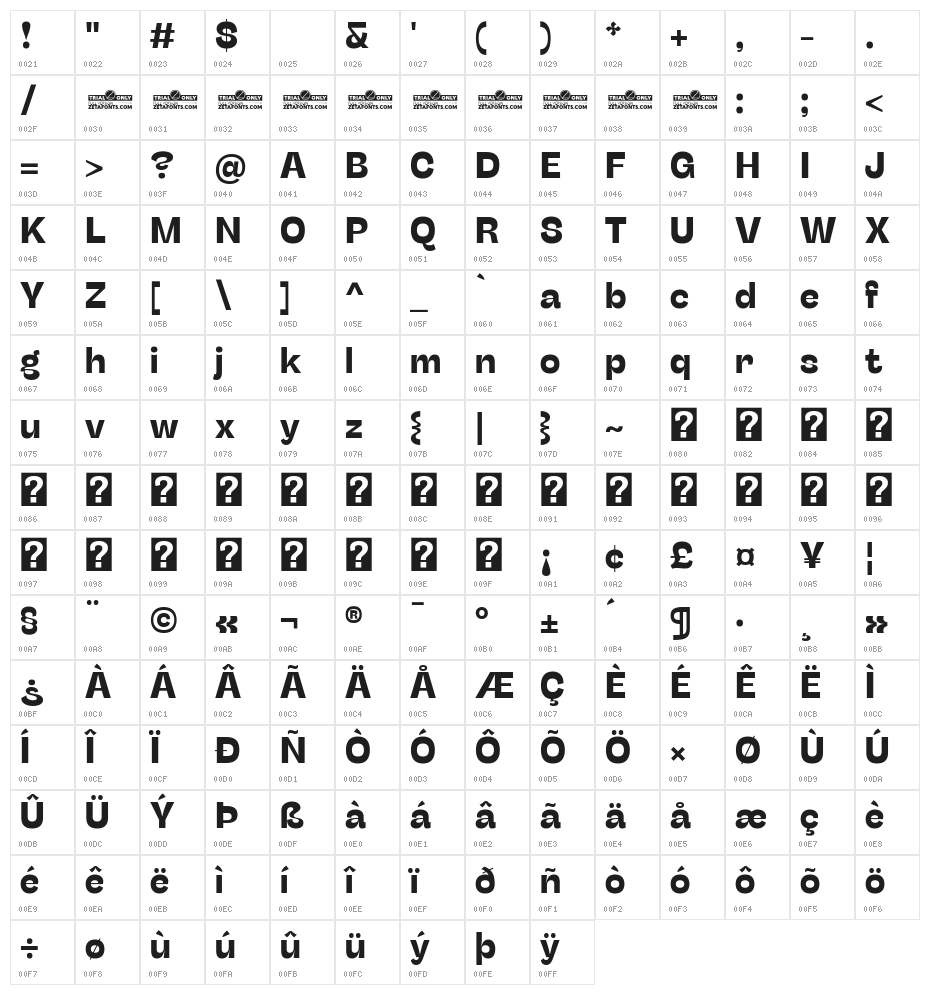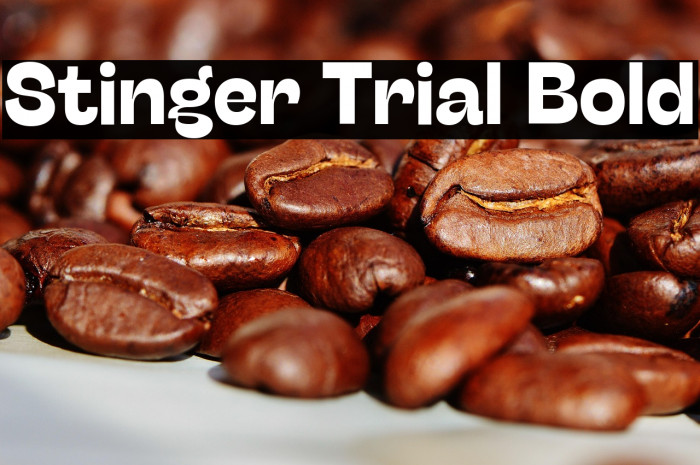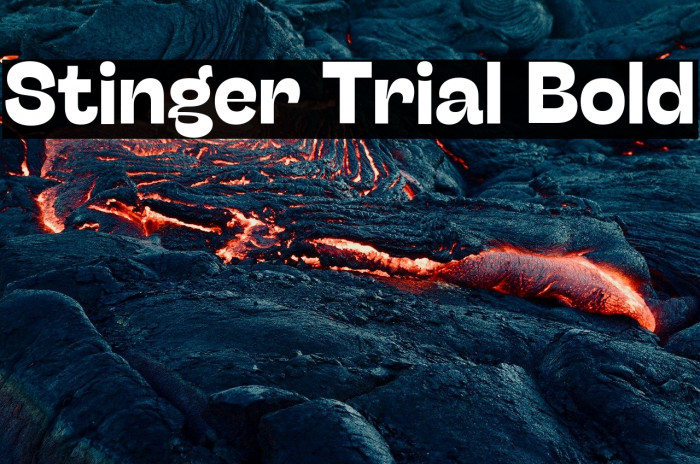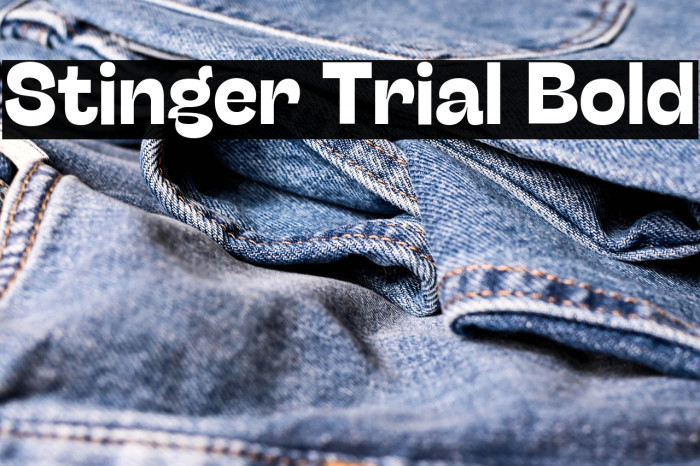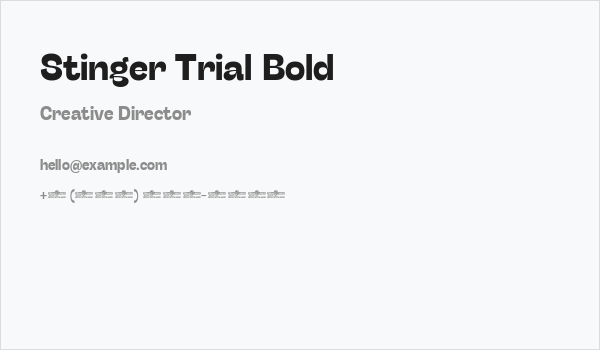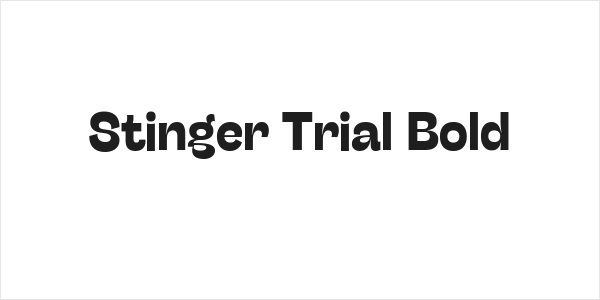
Stinger Trial Bold Font
Stinger Trial Bold Description
This font features bold, strong letterforms with a modern and clean aesthetic. The uppercase and lowercase letters are designed with a consistent weight, providing a uniform appearance across all characters. The font has a geometric structure, with rounded edges that soften the overall look while maintaining a sense of authority and impact. The numerals and special characters are crafted to match the boldness of the alphabet, ensuring a cohesive style throughout. This font is highly legible, making it suitable for various design applications where clarity and emphasis are required.